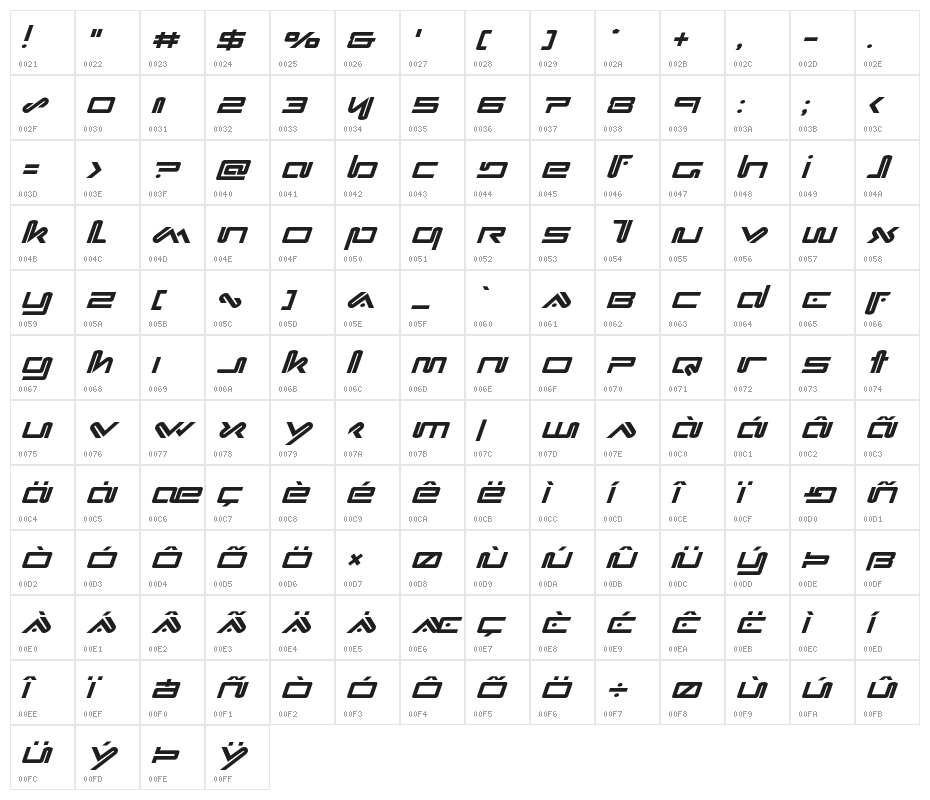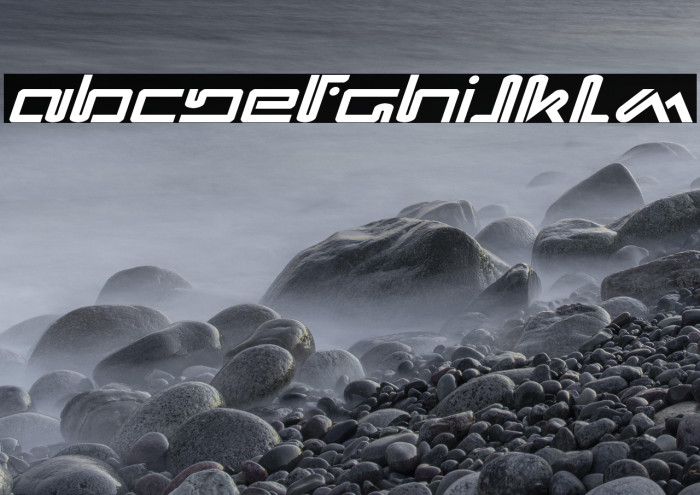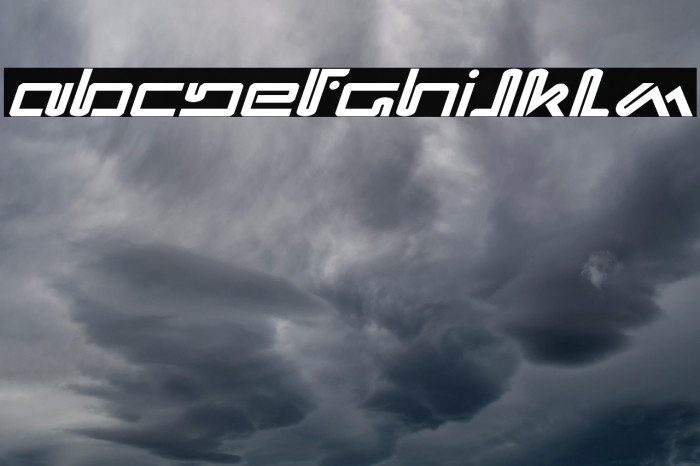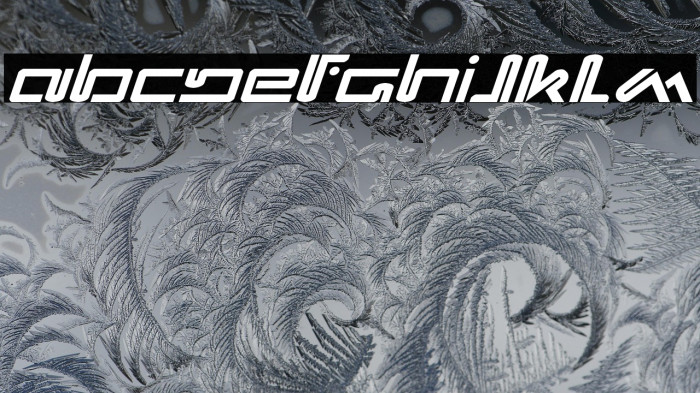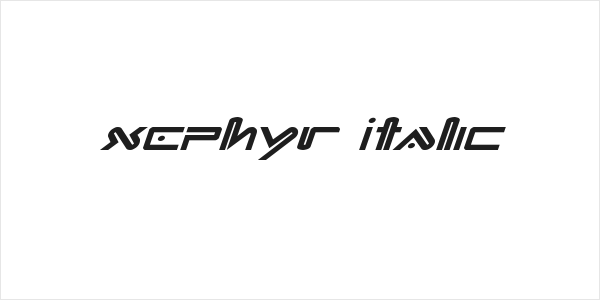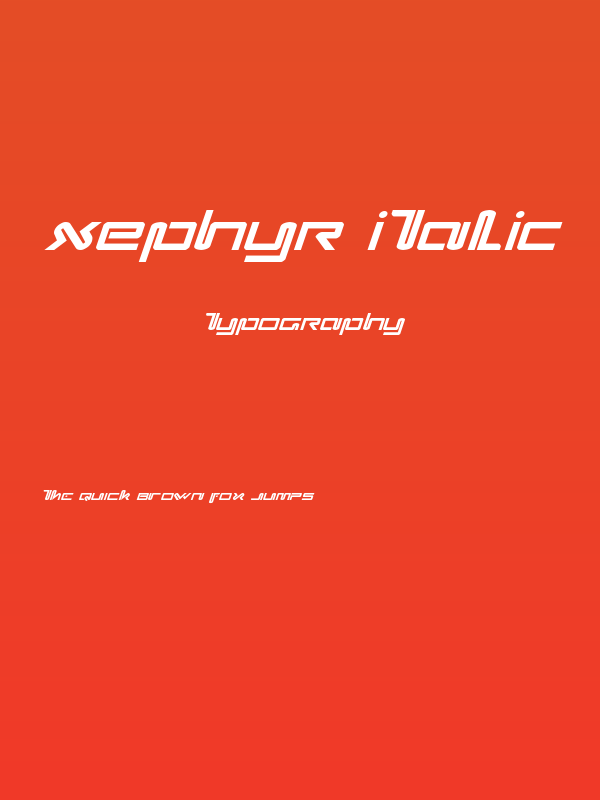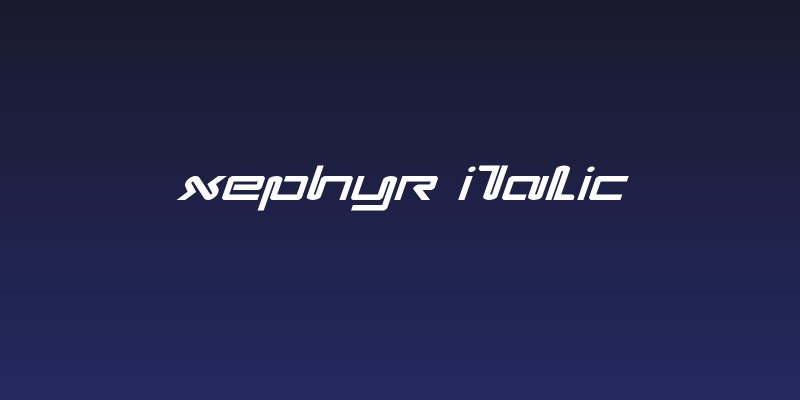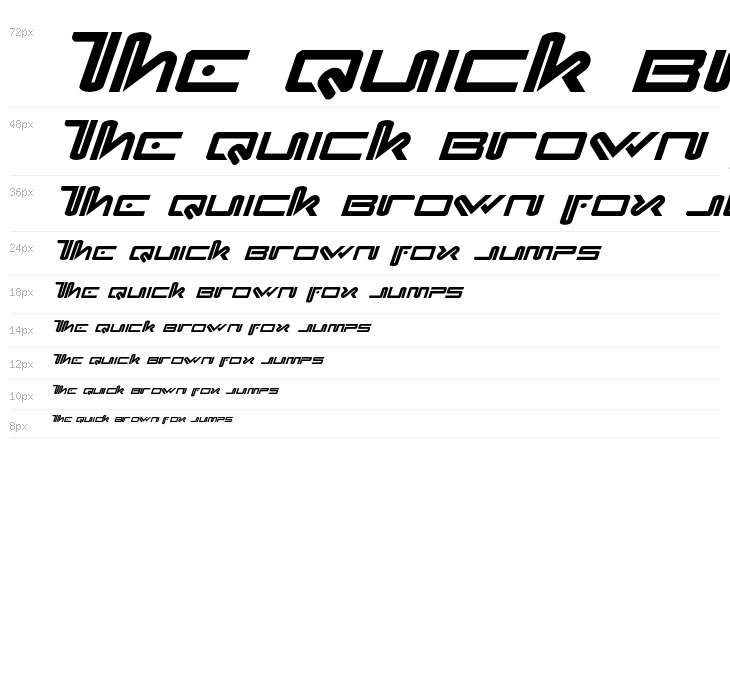
Xephyr Italic Font
Xephyr Italic Description
This font features a futuristic and angular design, characterized by its sharp edges and geometric shapes. The letters are italicized, giving a sense of motion and speed. The uppercase and lowercase characters maintain a consistent style, with unique cutouts and slashes that add to its modern aesthetic. The numbers and special characters follow the same design principles, ensuring uniformity across all glyphs. The overall look is sleek and tech-inspired, making it suitable for projects that require a contemporary and edgy feel.
| Proposed Projects | Ideal for tech branding, sci-fi movie posters, video game titles, and modern digital interfaces. |